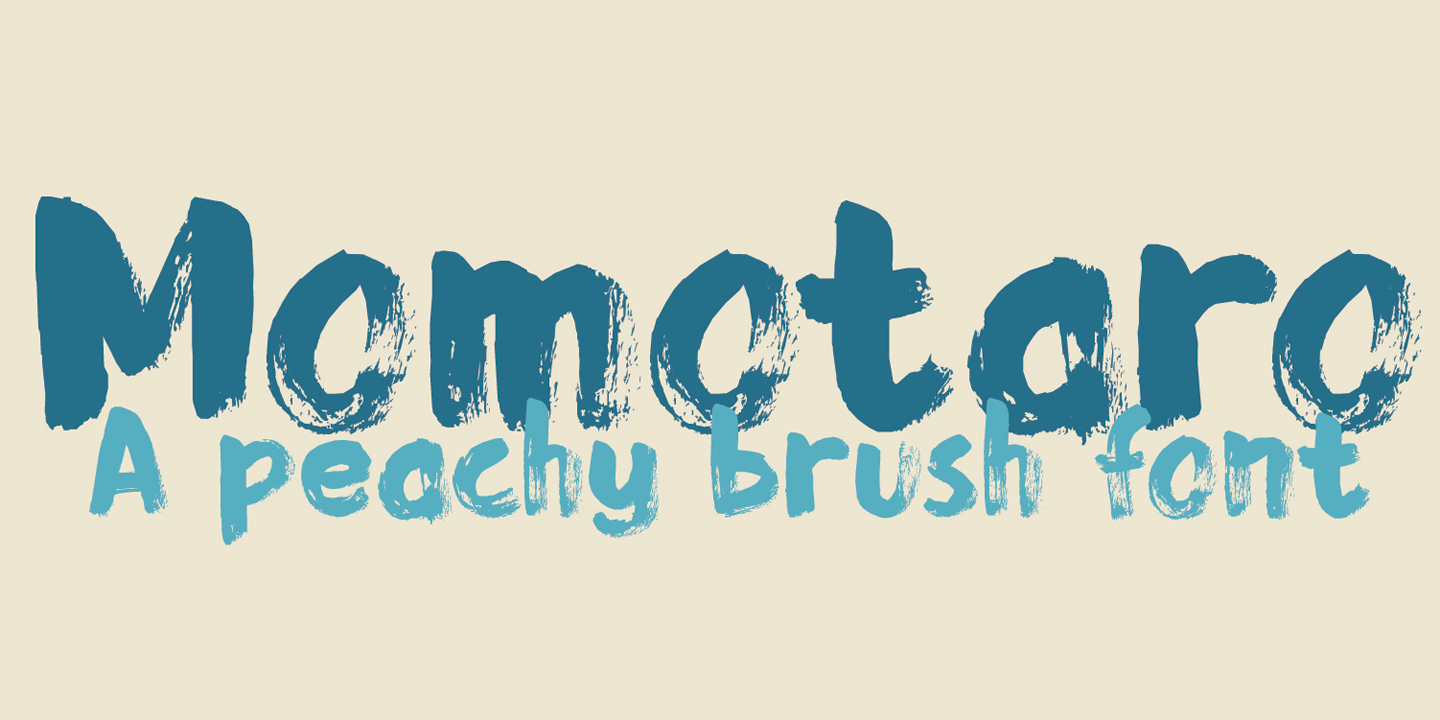
Momotaro Font is perfect for Japanese-inspired designs, anime graphics, manga publications, cultural celebrations, children's books, gaming interfaces, martial arts materials, and authentic Japanese-themed communications.
What makes Momotaro Font exciting is its charming Japanese character that embodies the spirit of traditional folklore and contemporary pop culture through distinctive letterforms and cultural authenticity. This delightful typeface features anime-inspired construction, folkloric details, and playful personality that captures the essence of Japanese storytelling traditions and modern kawaii culture, making it ideal for projects seeking to communicate Japanese cultural charm and contemporary appeal with authentic cultural resonance.
The Momotaro Font family includes Regular and Bold weights, each maintaining the characteristic Japanese charm and folkloric appeal that define this distinctive typeface's cultural personality and contemporary kawaii aesthetics.
Momotaro Font Free Download offers designers access to a typeface that perfectly captures the intersection of Japanese tradition and modern pop culture. This charming font brings authentic Japanese aesthetics to contemporary projects, making it essential for anime studios, manga publishers, and cultural brands targeting audiences passionate about Japanese culture and entertainment. The font's culturally-inspired construction and folkloric details ensure respectful representation of Japanese design traditions while its distinctive character creates immediate recognition among anime and manga enthusiasts. Whether designing anime promotional materials, Japanese cultural festival graphics, or kawaii-themed brand communications, this font delivers the cultural authenticity and contemporary appeal that dedicated audiences expect. Its folkloric foundation and pop culture relevance make it indispensable for projects celebrating Japanese storytelling traditions, anime culture, and the global influence of Japanese entertainment, ensuring communications resonate with audiences who appreciate the rich tapestry of Japanese cultural expression from ancient folklore to modern digital entertainment.